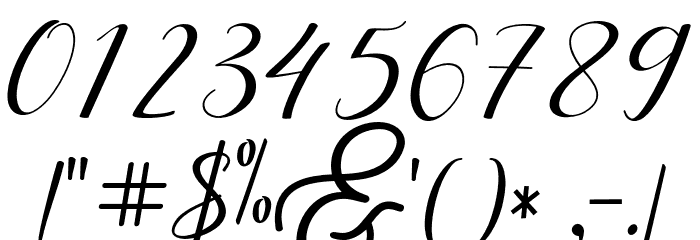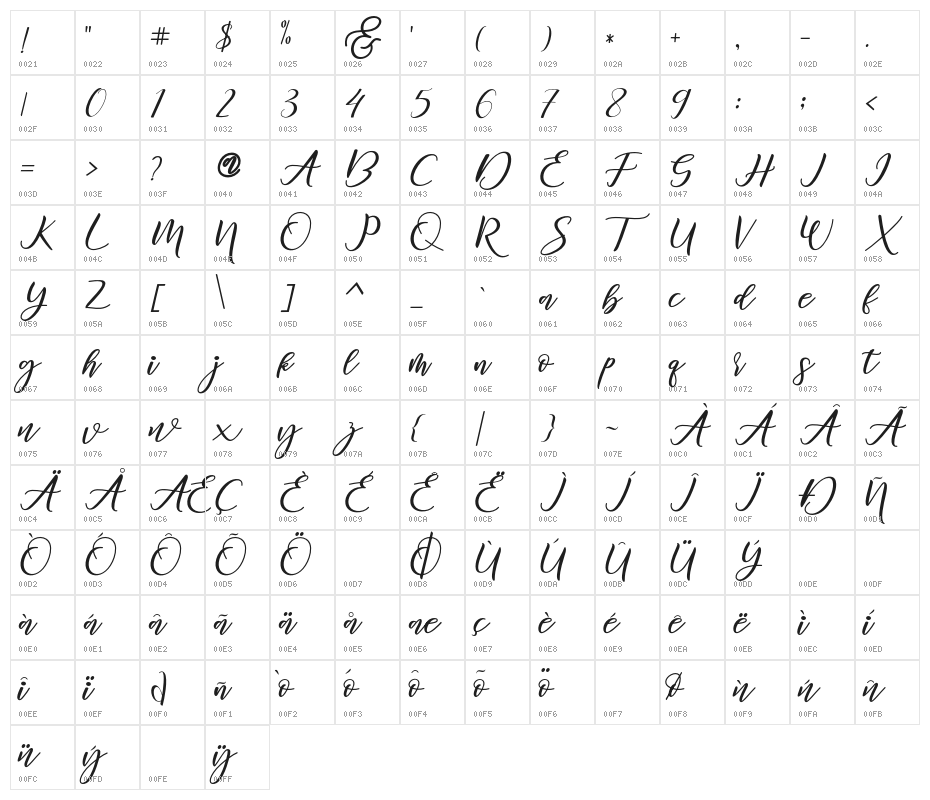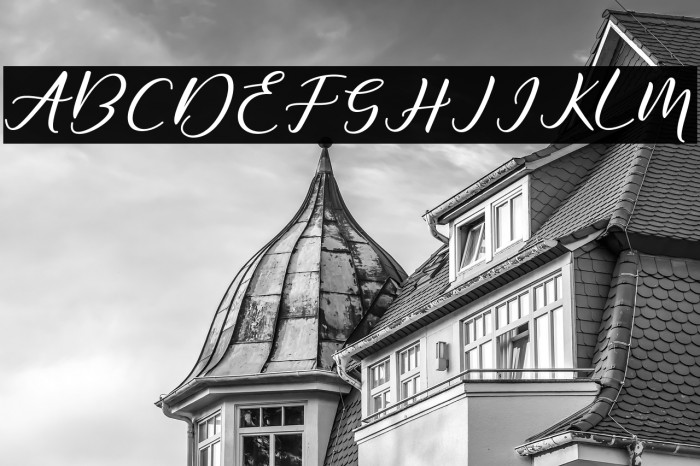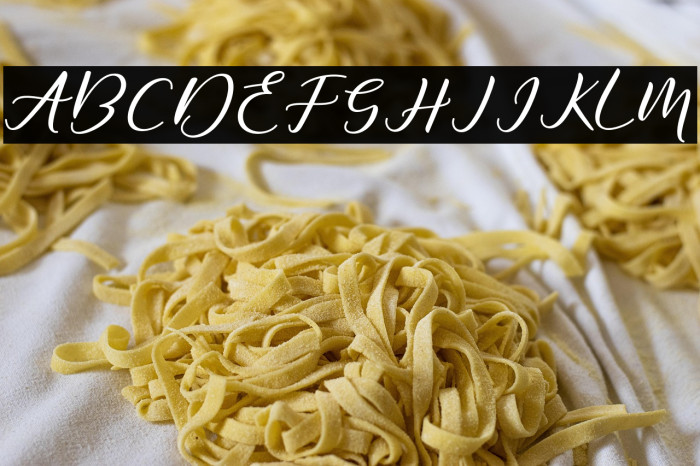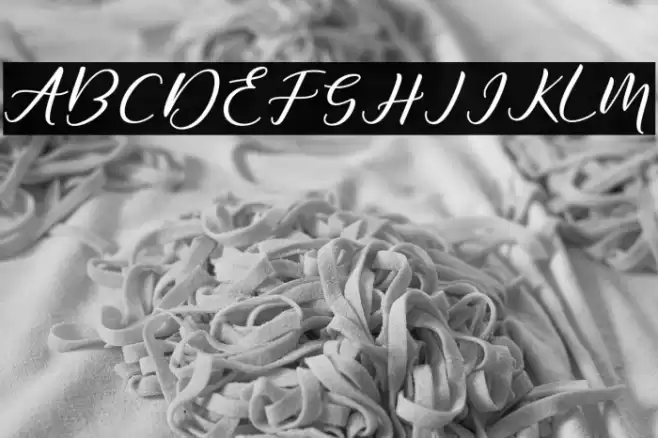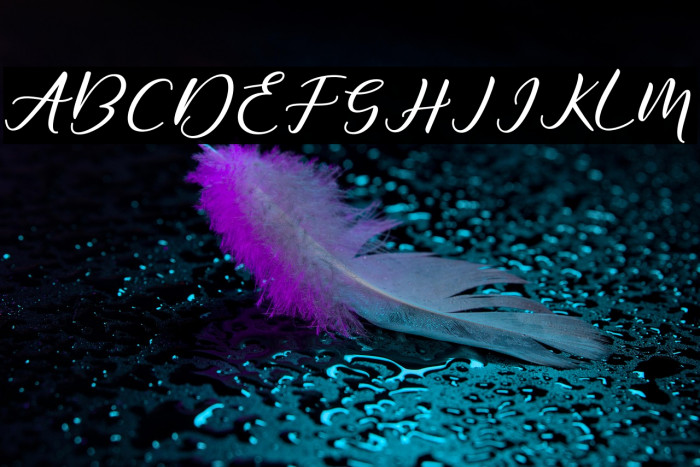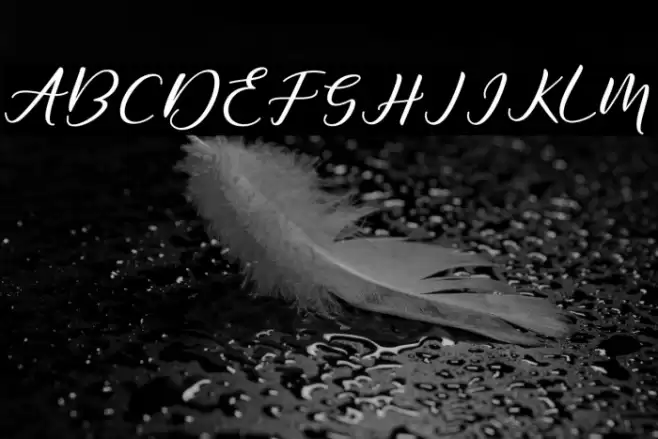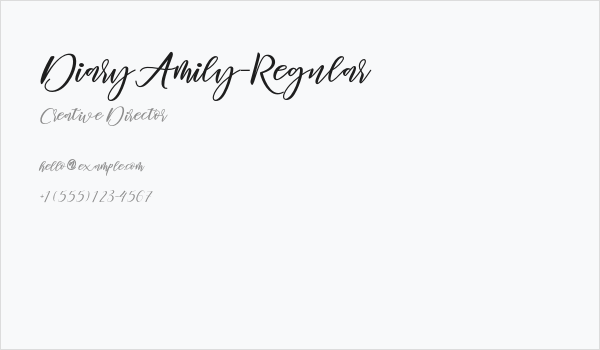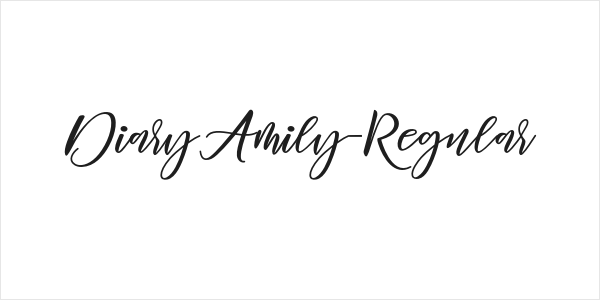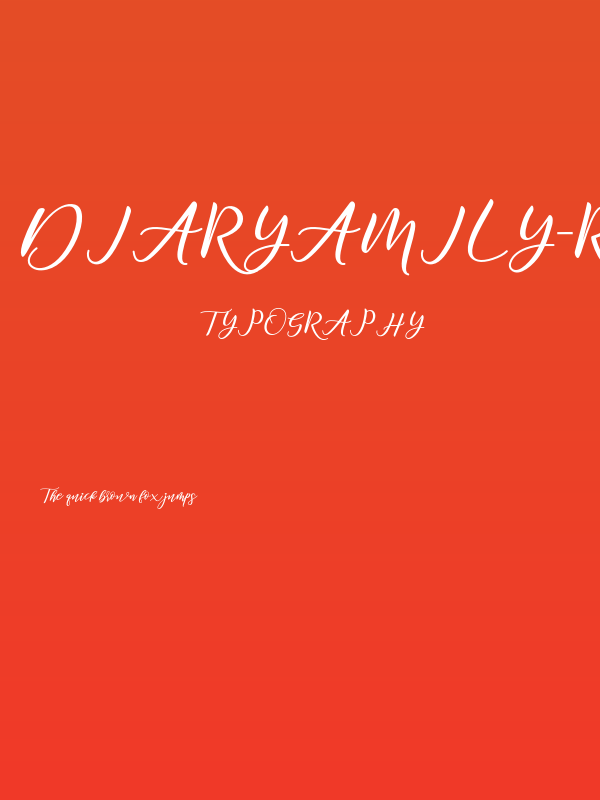
DiaryAmily-Regular Font
DiaryAmily-Regular Description
This font exudes a charming and elegant script style, characterized by its fluid and graceful strokes. The uppercase letters are slightly more formal, maintaining a consistent height and a gentle slant, while the lowercase letters are more playful with varied heights and loops. The numerals are distinct and easy to read, complementing the overall style. Special characters are thoughtfully designed to match the script's flow, adding versatility. The font's smooth curves and balanced weight make it suitable for a variety of creative applications.